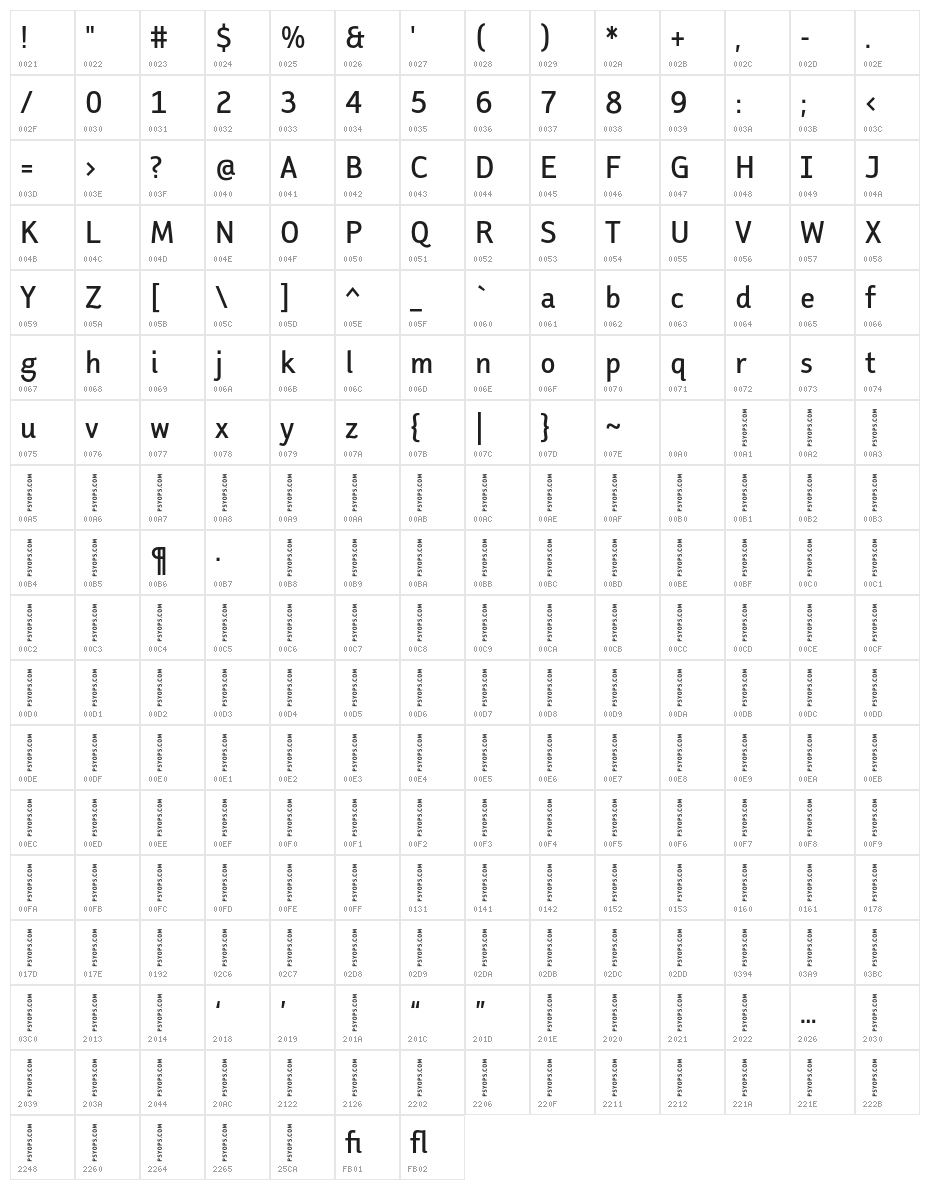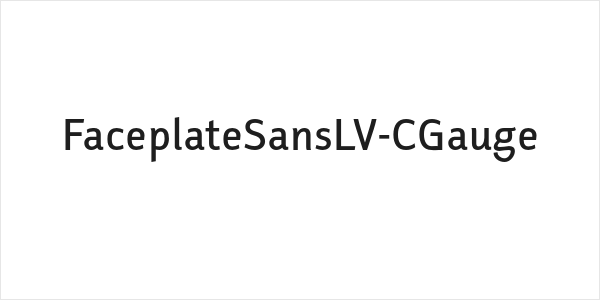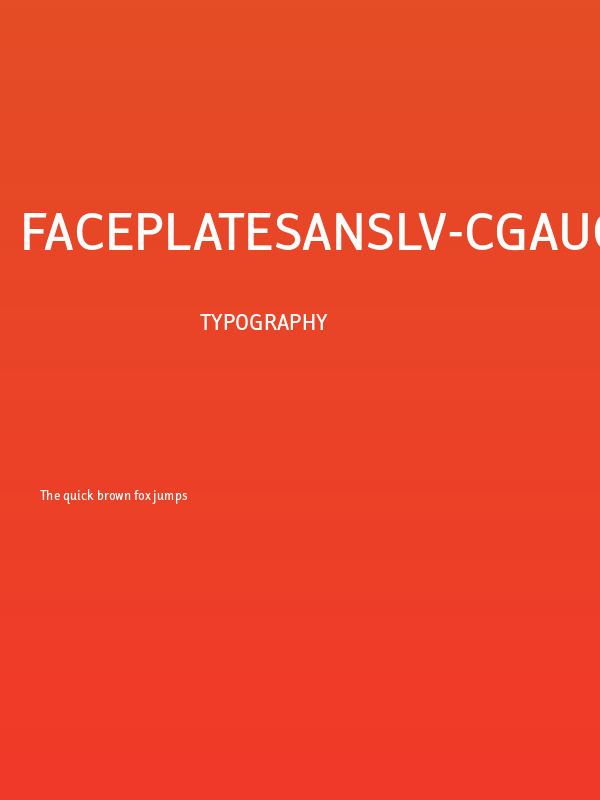
FaceplateSansLV-CGauge Font
FaceplateSansLV-CGauge Description
This font features a clean and modern sans-serif design, characterized by its uniform stroke width and geometric shapes. The uppercase letters are bold and assertive, while the lowercase letters maintain a consistent and harmonious flow. The numerals are clear and easily distinguishable, making them suitable for various applications. The special characters are well-integrated, maintaining the overall aesthetic of the font. Its simplicity and clarity make it versatile for both digital and print media.
| Proposed Projects | Ideal for branding, signage, digital interfaces, and editorial design. |